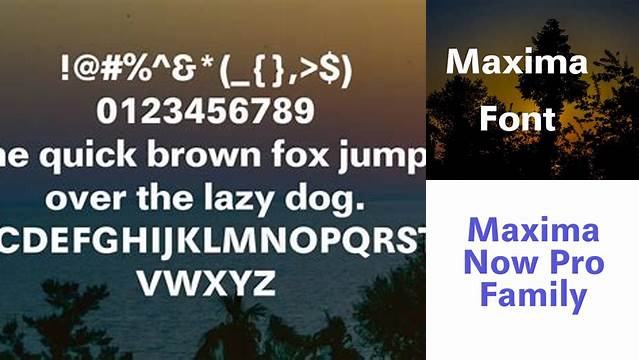
Maxima Now Font: Free Download Guide & Usage Tips
Are you looking for maxima now font free download options? You've come to the right place! In this article, we'll dive deep into everything you need to know about the Maxima Now font, including its features, design, where to find it for free, and how to use it effectively in your projects. Whether you're a seasoned designer or just starting out, understanding the nuances of typography is crucial. And Maxima Now, with its modern and versatile aesthetic, is a font that deserves a spot in your font library.
What is Maxima Now Font?
Maxima Now is a contemporary sans-serif typeface that blends clean lines with subtle curves, creating a harmonious balance between functionality and elegance. Its design is rooted in the principles of modern typography, aiming for readability and visual appeal across various applications. The font family typically includes a range of weights, from light to bold, and often comes with corresponding italic styles, providing designers with a versatile toolkit to express their creative visions. The font's character set usually supports a wide array of languages, including extended Latin characters, making it suitable for international projects. Its open and inviting letterforms ensure clarity even at smaller sizes, making it ideal for body text, while its distinct personality shines through in headlines and display settings. Maxima Now is crafted to be both timeless and contemporary, fitting seamlessly into designs that range from corporate branding to editorial layouts. The font's adaptability stems from its carefully considered proportions and spacing, which contribute to a comfortable reading experience. Furthermore, its digital-first design ensures optimal rendering on screens, making it a reliable choice for websites, apps, and other digital platforms. Designers often choose Maxima Now for its ability to convey a sense of modernity and sophistication, making it a go-to option for projects that require a clean and professional aesthetic.
Key Features and Design Elements
When we talk about maxima now font free download, it's essential to understand what makes this font so special. Maxima Now stands out due to several key features. Firstly, its clean and modern design ensures readability across various mediums, be it print or digital. The font family typically includes a range of weights – from light and regular to bold and extra-bold – offering versatility for different design needs. Each weight is meticulously crafted to maintain consistency in letterforms and spacing, ensuring a cohesive visual experience. The subtle curves incorporated into the letterforms add a touch of elegance, preventing the font from appearing too sterile or mechanical. This balance between clean lines and soft curves makes Maxima Now suitable for a wide range of applications, from corporate branding to editorial design. Another notable feature is its extensive character set, which often includes ligatures, alternates, and support for multiple languages. This allows designers to add unique stylistic touches and cater to international audiences. Furthermore, the font's x-height is carefully optimized to enhance readability, especially in body text. The consistent stroke contrast contributes to a harmonious visual rhythm, making it easy on the eyes. Maxima Now is also designed with scalability in mind, ensuring that it looks crisp and clear at both small and large sizes. This is crucial for responsive design, where the font needs to adapt seamlessly to different screen resolutions. The font's kerning and tracking are finely tuned to create even spacing between letters, preventing awkward gaps or overlaps. Overall, Maxima Now's design elements are carefully considered to provide a balance of aesthetics and functionality, making it a reliable choice for any design project.
How to Use Maxima Now Effectively
So you've managed to snag a maxima now font free download – great! Now, let's talk about how to use it effectively. Maxima Now's versatility makes it suitable for a wide range of design applications. When using it for body text, choose a regular or light weight to ensure readability. Pay attention to the font size and line height to create a comfortable reading experience. Avoid using overly decorative styles or excessive font variations in large blocks of text, as this can fatigue the reader's eyes. For headlines and titles, feel free to experiment with bolder weights and larger sizes to create visual impact. Consider using different weights to establish a clear hierarchy and guide the reader's attention. Maxima Now's clean lines and modern aesthetic make it an excellent choice for branding projects. Use it to create a consistent visual identity across your website, marketing materials, and social media channels. Pair Maxima Now with complementary fonts to add depth and visual interest to your designs. A classic serif font can create a sophisticated contrast, while a more playful sans-serif can add a touch of personality. Experiment with different combinations to find what works best for your project. When using Maxima Now in digital designs, ensure that it renders correctly across different browsers and devices. Optimize the font files for web use to improve page load speed. Consider using font hinting techniques to improve the font's appearance at small sizes. Remember to respect the font's license agreement and use it in accordance with the terms specified by the font designer or foundry. By following these guidelines, you can leverage Maxima Now's full potential and create visually stunning and effective designs.
Pairing Maxima Now with Other Fonts
One of the keys to making maxima now font free download truly shine is pairing it effectively with other fonts. The right font pairing can elevate your design, creating a harmonious and visually appealing composition. When pairing Maxima Now, consider its clean and modern aesthetic. It generally works well with both serif and sans-serif fonts, depending on the desired mood and style. For a classic and sophisticated look, try pairing Maxima Now with a traditional serif font like Times New Roman or Georgia. The contrast between the clean sans-serif and the more ornate serif can create a visually striking effect. This combination is particularly effective for editorial designs or projects that require a sense of formality. If you're aiming for a more contemporary and minimalist feel, consider pairing Maxima Now with another sans-serif font. However, be careful to choose a font that complements Maxima Now without being too similar. Look for subtle differences in letterforms or weights to create visual interest. For example, you could pair Maxima Now with a geometric sans-serif like Montserrat or a humanist sans-serif like Open Sans. Another approach is to use Maxima Now for headlines and titles and pair it with a different font for body text. This can help to establish a clear visual hierarchy and guide the reader's eye. Experiment with different font sizes and weights to create contrast and visual interest. When pairing fonts, it's also important to consider the overall tone and message of your design. Choose fonts that align with the brand identity and target audience. Don't be afraid to experiment and try different combinations until you find what works best for your project. Ultimately, the goal is to create a font pairing that is both visually appealing and functional, enhancing the overall design and improving the user experience.
Tips and Tricks for Optimizing Font Usage
After you maxima now font free download, optimizing its usage can significantly enhance your design projects. One crucial tip is to pay close attention to font size and line height. Choosing the right font size ensures readability, while adjusting the line height (also known as leading) prevents text from appearing too cramped or too spaced out. Experiment with different values to find the optimal balance for your specific design. Another important aspect is kerning and tracking. Kerning refers to the spacing between individual letters, while tracking adjusts the overall spacing between all letters in a word or phrase. Fine-tuning these settings can improve the visual appearance of your text and prevent awkward gaps or overlaps. When using Maxima Now in digital designs, optimize the font files for web use. This involves converting the font files to formats like WOFF or WOFF2, which are specifically designed for web browsers. These formats are compressed and optimized for faster loading times, improving the user experience. Consider using font hinting techniques to improve the font's appearance at small sizes. Font hinting involves adding instructions to the font file that tell the browser how to render the font at different resolutions. This can help to prevent pixelation and ensure that the font looks crisp and clear, even on low-resolution screens. Use CSS to control the font's appearance on your website. CSS allows you to specify font size, line height, letter spacing, and other typographic properties. By using CSS, you can ensure that your fonts are displayed consistently across different browsers and devices. Finally, always test your designs on different devices and browsers to ensure that the fonts render correctly. This will help you to identify any potential issues and make necessary adjustments. By following these tips and tricks, you can optimize your font usage and create visually stunning and effective designs.
Conclusion: Elevate Your Designs with Maxima Now
In conclusion, securing a maxima now font free download can be a game-changer for your design toolkit. This versatile and modern font offers a plethora of possibilities for various projects, from branding to editorial design. Its clean lines, subtle curves, and extensive character set make it a valuable asset for any designer. Remember to always download fonts from reputable sources to avoid malware and copyright issues. Once you have Maxima Now, experiment with different weights, sizes, and pairings to unlock its full potential. Pay attention to kerning, tracking, and line height to optimize readability and visual appeal. By following the tips and tricks outlined in this guide, you can elevate your designs and create visually stunning and effective communications. Whether you're a seasoned professional or just starting out, Maxima Now is a font that deserves a place in your font library. So go ahead, explore the world of typography, and let Maxima Now be your guide to creating beautiful and impactful designs. Happy designing, guys! And always remember, the best designs come from a combination of creativity, skill, and the right tools – and Maxima Now is definitely one of those tools!